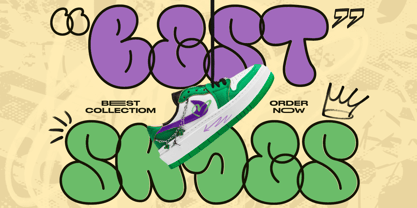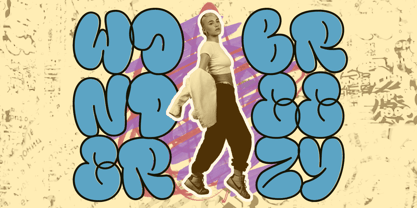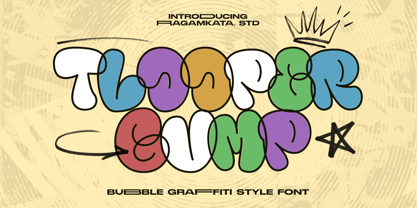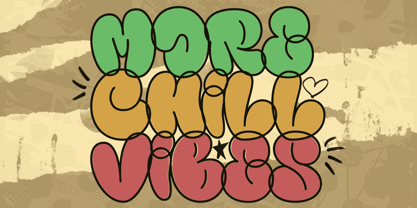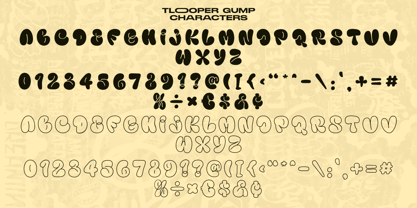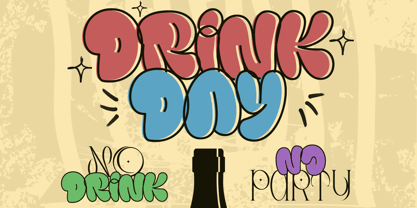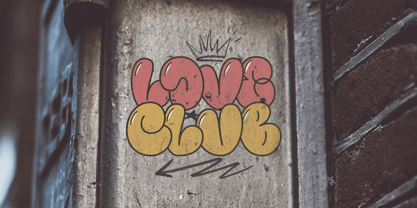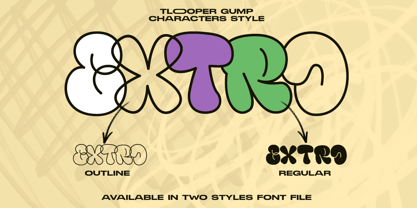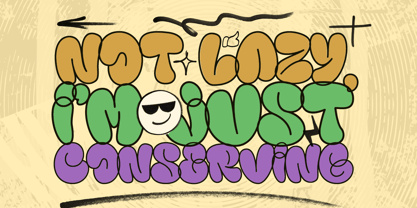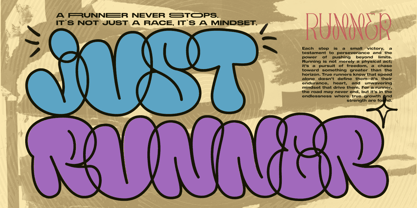
Tlooper Gump
by RagamKata
The Tlooper Gump Font Family was designed by Yogiswhara Dio Prakoso Riadi and published by RagamKata. Tlooper Gump contains 2 styles and family package options. More about this family
Tlooper Gump - Bubble Graffiti Style Font
Unleash your creativity with Tlooper Gump, a bold and playful bubble graffiti font that brings urban vibes to your designs! Featuring smooth curves, chunky shapes, and a vibrant street art aesthetic, this font is perfect for adding a fun and dynamic touch to any project.
Ideal for:
🎨 Urban-themed posters and flyers
🎉 Party or event invitations
🎮 Game designs with a funky, youthful feel
👕 Apparel and merchandise designs
🖌️ Streetwear branding
📱 Social media graphics with a playful tone
Let Tlooper Gump bring energy and character to your designs, making them pop with style and personality